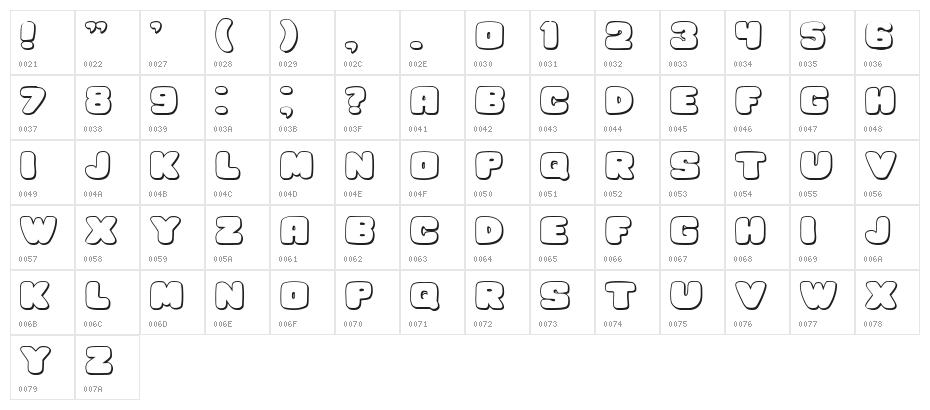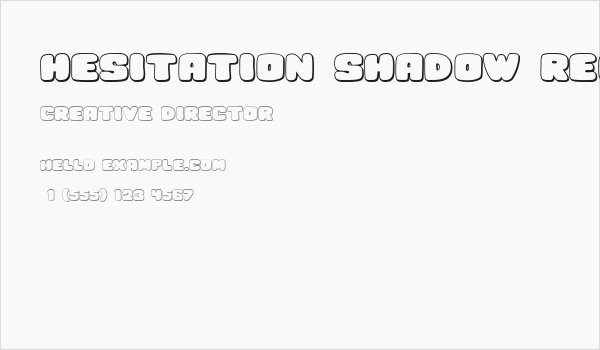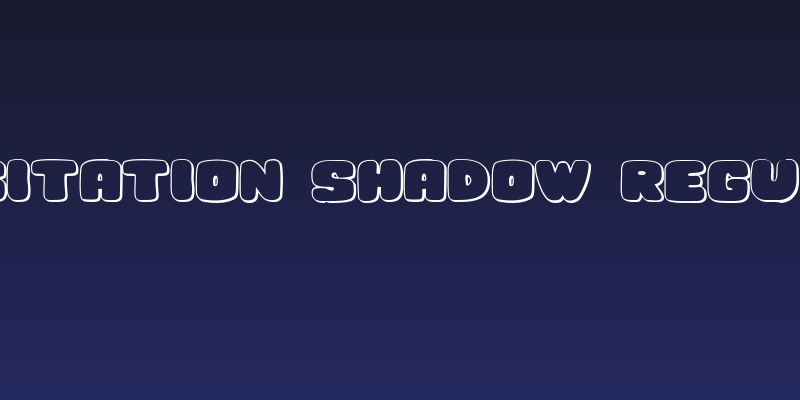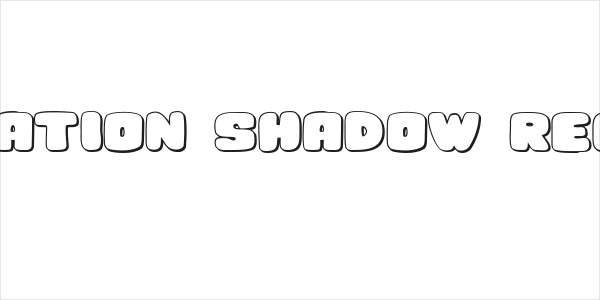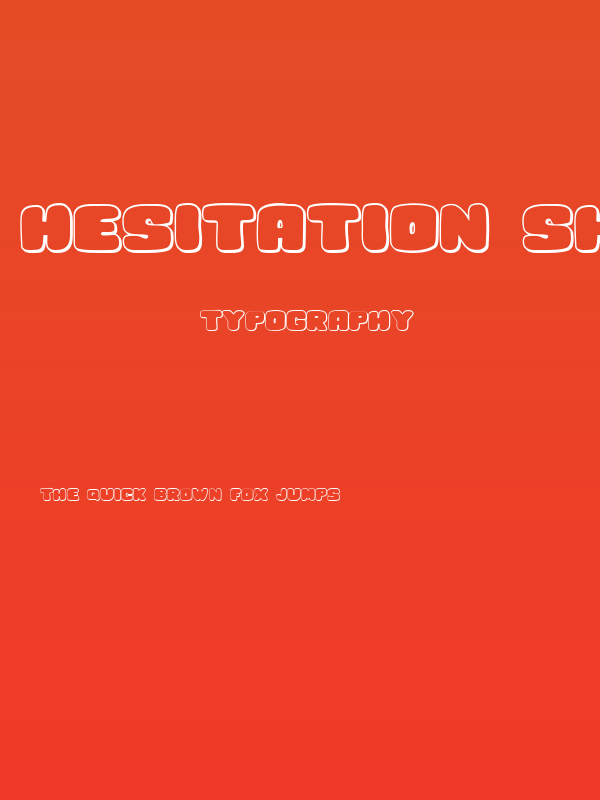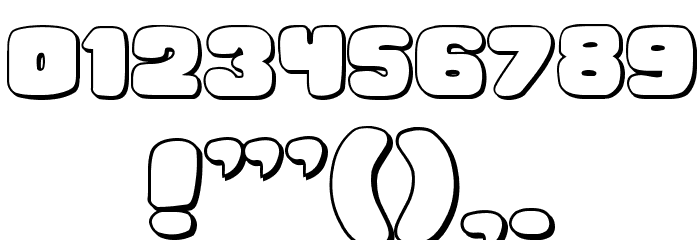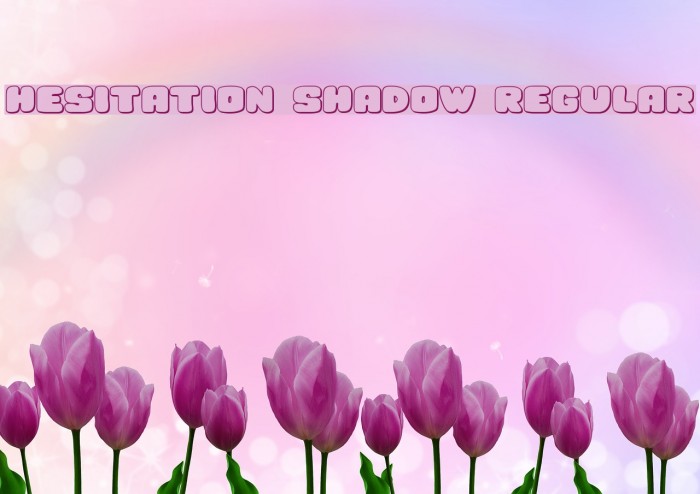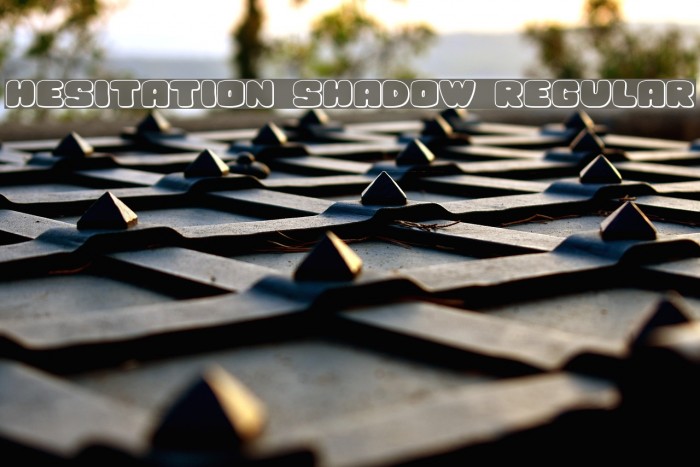
Hesitation Shadow Regular Font
Hesitation Shadow Regular Description
This font features a playful, bubble-like design with thick, rounded edges and a shadow effect that gives it a three-dimensional appearance. The characters are bold and have a uniform width, creating a cohesive and visually striking look. The shadow adds depth and makes the letters stand out, enhancing their readability. This style is reminiscent of retro or comic book aesthetics, making it ideal for designs that require a fun and engaging appearance. The font includes a full set of uppercase letters, numbers, and a selection of punctuation marks, ensuring versatility for various design needs.
Vladimir Nikolic - www.coroflot.com/vladimirnikolic
| Overall Style | Playful, Retro |
| Proposed Projects | Ideal for children's book covers, comic strips, playful branding, and retro-themed posters. |